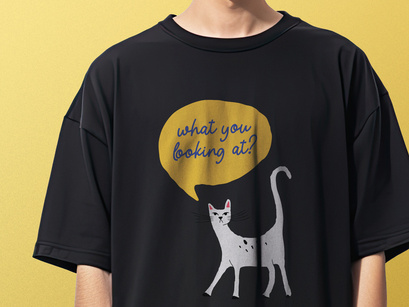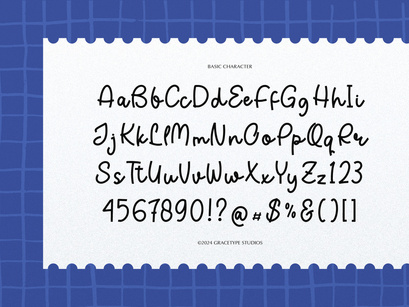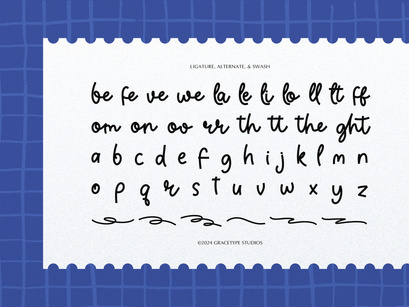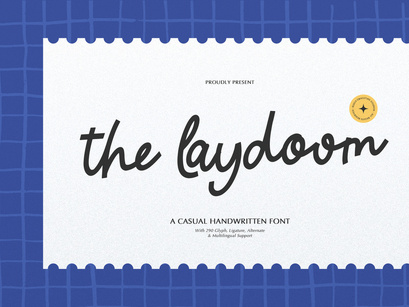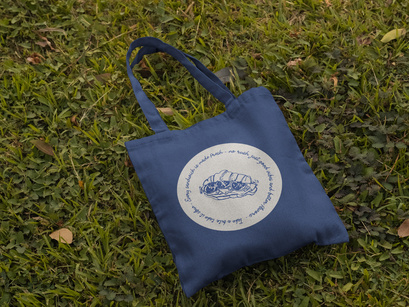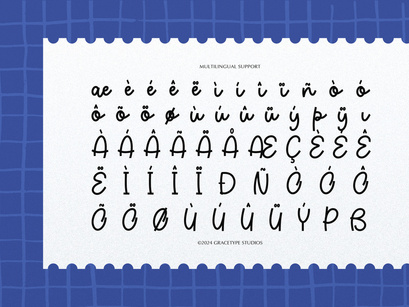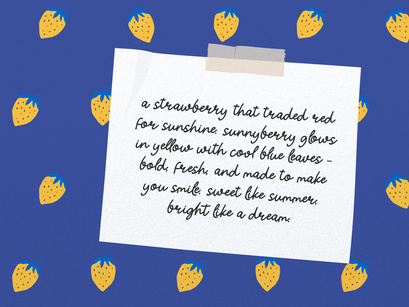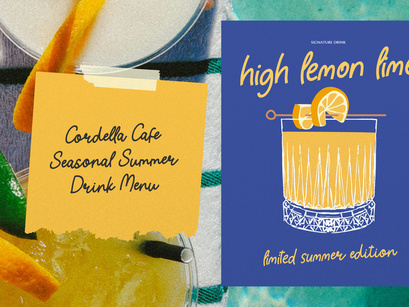
The Laydoom | Casual Handwritten FontPremium
The Laydoom | Casual Handwritten Font
The Laydoom Italic
The Laydoom
The Laydoom | Casual Handwritten Font, from Gracetypestudio, suitable for any projects such as: logos, branding projects, homeware designs, product packaging, mugs, quotes, posters, shopping bags, t-shirts, book covers, name card, invitation cards, greeting cards, label, photography, watermark, special events, and all your other lovely projects that need a Retro Script taste.